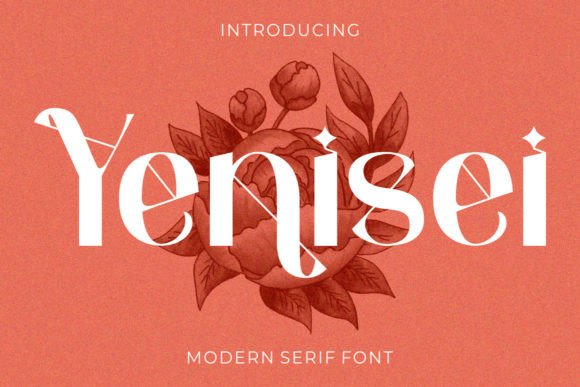
Immerse yourself in the world of Yenisei Font, a captivating serif font meticulously designed by putracetol. Its timeless beauty and contemporary style are a perfect match for your creative vision. Whether you're working on a fashion magazine, designing captivating covers, crafting captivating posters, or creating eye-catching headings, Yenisei Font is your ultimate choice. With its elegant curves and refined details, it adds a touch of sophistication to any project, making it a must-have for discerning designers.
Experience the versatility of Yenisei Font, a font that effortlessly adapts to a wide range of design projects. Its classic serif design lends a sense of authority and elegance to websites, while its delicate details shine through in wedding invitations, adding a touch of romance and charm. Yenisei Font's timeless appeal makes it an excellent choice for magazines, where its readability and visual appeal enhance the reading experience. Unleash your creativity and explore the endless possibilities that Yenisei Font has to offer.
Take your designs to new heights with Yenisei Font, the ultimate choice for creating stunning headlines that captivate and engage. Its bold and confident strokes command attention, making your words stand out and leave a lasting impression. Whether it's a website, poster, or magazine cover, Yenisei Font ensures that your headlines radiate power and elegance. Its versatile style complements a wide range of design aesthetics, making it an essential tool for designers seeking to make a statement.